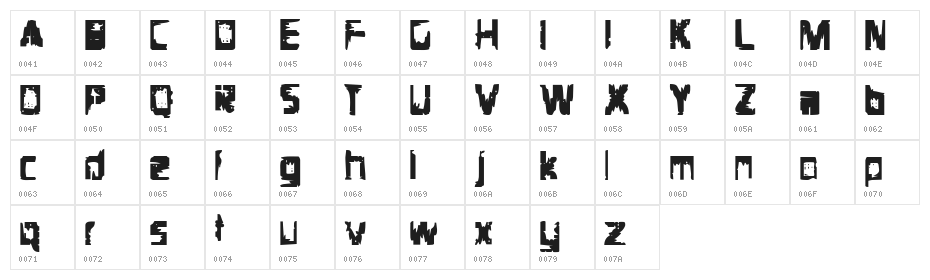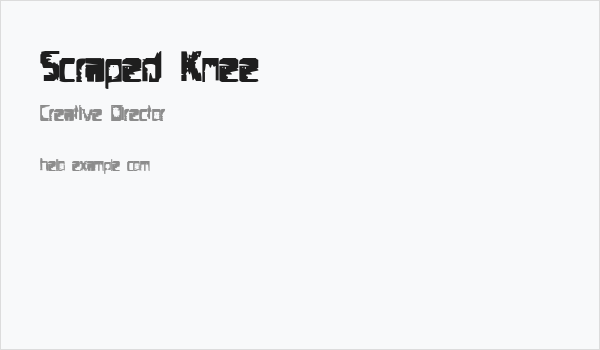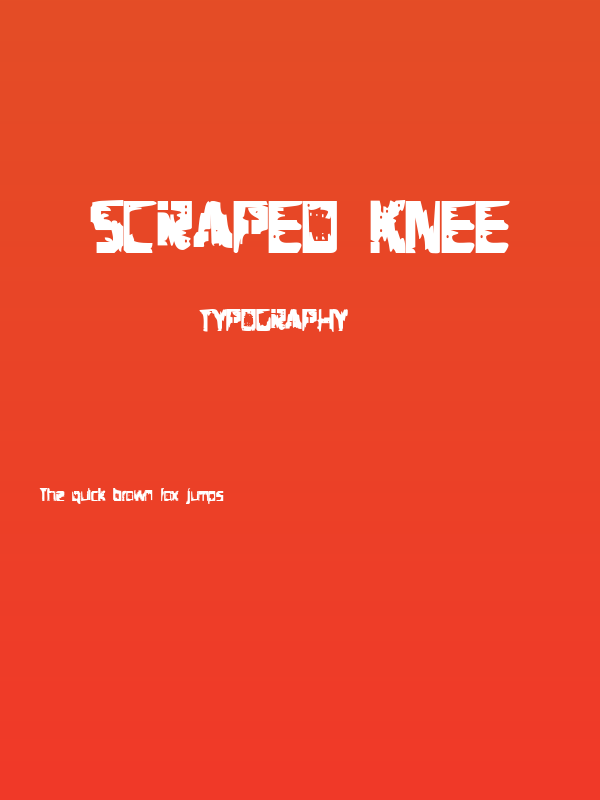
Scraped Knee Font
| Categorie | Messy |
| Stile generale | Grunge, Urban, Edgy |
| Progetti proposti | Ideal for album covers, streetwear branding, skateboarding graphics, or any project needing an edgy, urban feel. |